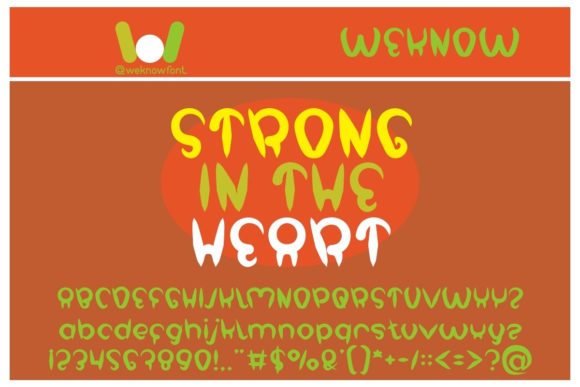
Introducing Strong in the Heart – A Font That's Sure to Make a Statement
In a world of ordinary fonts, Strong in the Heart stands tall, an extraordinary display font that commands attention and leaves a lasting impression. With its captivating presence, this font is the ultimate choice for those seeking to make a bold statement in the world of design.
Journey into the realm of Strong in the Heart and discover a font that exudes confidence, strength, and sophistication. Its meticulously crafted characters, each possessing a unique charm, dance harmoniously together, creating visual compositions that are both captivating and awe-inspiring.
Unleash the Power of Expression with Strong in the Heart
Strong in the Heart is more than just a font; it's an artistic expression, a tool that empowers designers and creatives to communicate their messages with unparalleled impact. Whether you're crafting logos that demand attention, logotypes that leave an indelible mark, or headlines that ignite curiosity, Strong in the Heart is your steadfast companion, guiding you towards design excellence.
Visualize your designs transformed, imbued with a newfound boldness and elegance. Picture logos that leap off the page, capturing the essence of your brand with unwavering strength. Envision logotypes that command respect, conveying a sense of authority and trustworthiness. Imagine headlines that dance across the screen, enticing readers with their undeniable allure.
A Font for Every Occasion, A Font for Every Need
Strong in the Heart's versatility extends far beyond its ability to create stunning logos and headlines. This font flourishes in a myriad of design applications, effortlessly adapting to your creative vision. Unleash your creativity and explore the possibilities – use Strong in the Heart for corporate identity projects, imbuing your brand with a sense of professionalism and distinction. Allow your imagination to soar as you craft apparel designs that exude individuality and style. Create posters that ignite passion, conveying messages with an emotional depth that resonates with audiences.
Join the ranks of design visionaries who have harnessed the power of Strong in the Heart to elevate their projects to new heights. Experience the exhilaration of creating designs that captivate, designs that leave an enduring legacy. Embrace the transformative power of Strong in the Heart and witness your creative endeavors flourish.